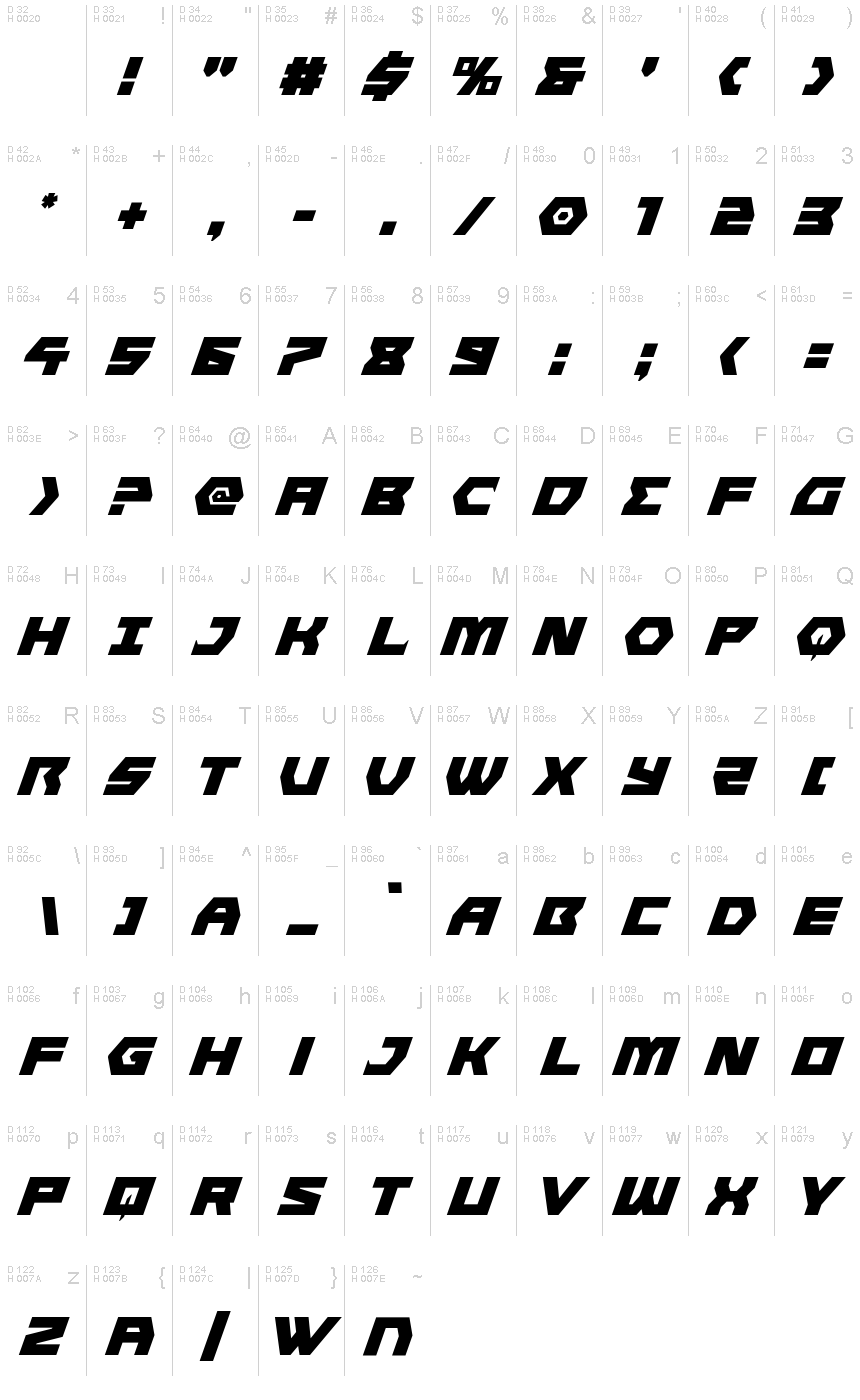
Cyberform Super-Italic
Cyberform Super-Italic, a captivating display typeface from the renowned Iconian Fonts, exudes a futuristic, bold allure. With its expanded, ultra-bold silhouette and distinct italic slant, this font radiates a sense of technological prowess and digital-age dynamism. Its sharp, angular lines and geometric forms evoke a striking, cutting-edge aesthetic, making it a compelling choice for projects seeking to convey a sense of innovation, progress, and technological sophistication.
The Cyberform Super-Italic's expansive width and commanding presence lend themselves well to attention-grabbing headlines, impactful branding, and eye-catching design elements. Its versatility extends across various applications, from sleek user interfaces and dynamic web designs to bold typographic art and captivating packaging. With its unwavering presence and ability to command attention, this font is a powerful tool for designers and brands seeking to make a bold, futuristic statement.